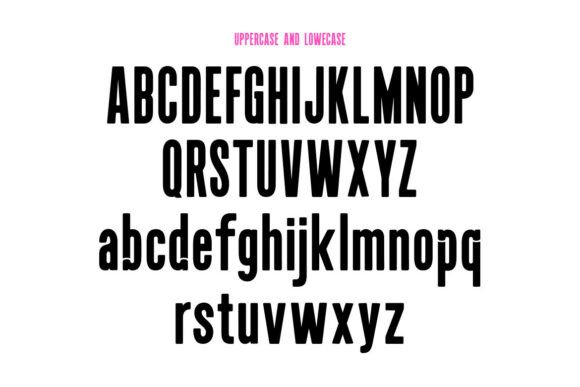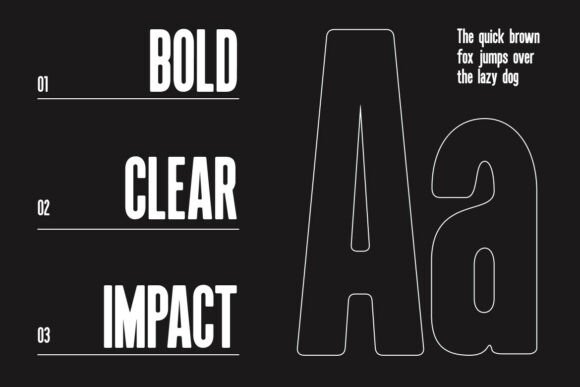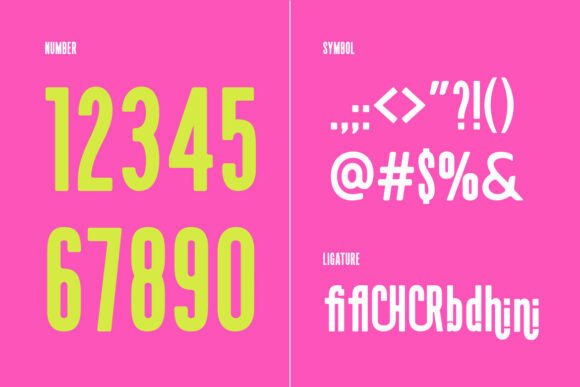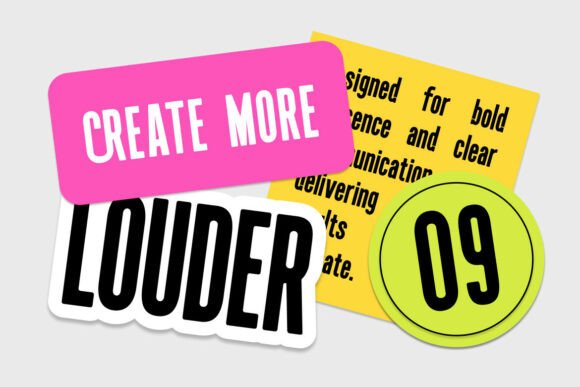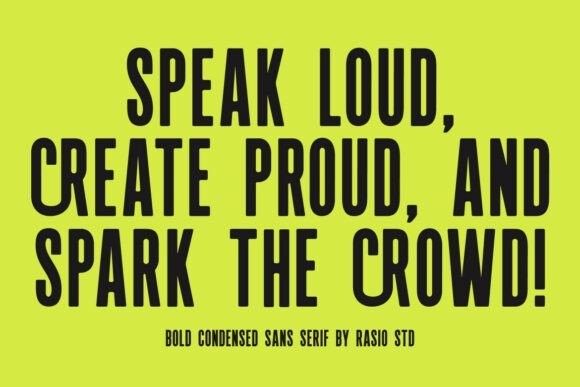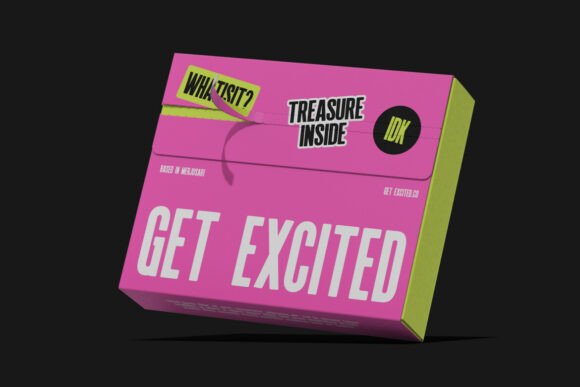
The Perfect Blend of Boldness and Efficiency
Have you ever stared at a blank design canvas, searching for the perfect font to elevate your project and make it truly unforgettable? I’m sure we’ve all been there. The struggle is real, but what if I told you there’s a font that can save the day and make your design stand out like never before?
Enter the Brightform Font, a game-changing sans-serif typeface designed to pack a punch in even the most space-constrained layouts. This bold, condensed font is engineered to deliver maximum visual impact while maintaining excellent readability. Its structured, condensed form makes it the ultimate solution for designers looking to create high-impact designs that demand attention and clarity.
For designers, the Brightform Font is a valuable asset that can take their projects to the next level. Its versatility and effectiveness make it an ideal choice for a wide range of applications, from branding systems and advertising campaigns to editorial headlines and merchandise graphics.
Brightform Font Key Features
- Unique Characteristics: Brightform Font features a modern, sans-serif design with a unique blend of geometric and organic elements, making it ideal for contemporary and minimalist designs.
Brightform Font Review
I recently had the chance to work with the Brightform Font, and I must say it’s a mixed bag. Here’s my honest take:
- Unique and modern design: Brightform Font has a distinctive look that’s sure to catch attention. Its bold, geometric shapes make it perfect for headings and titles.
- High legibility: Despite its bold appearance, the font is surprisingly easy to read, even at small sizes.
- Comprehensive character set: Brightform Font includes a wide range of characters, including accents and ligatures, making it suitable for various languages and applications.
- Not suitable for body text: While Brightform Font is great for headings and titles, it’s not the best choice for body text. Its boldness can make it tiring to read in large quantities.
- Limited stylistic variations: Brightform Font comes in a single style, which can make it feel a bit one-dimensional. Additional styles or weights would be a welcome addition.
Brightform Font is a solid choice for designers looking for a modern, attention-grabbing font. While it may not be suitable for all applications, it’s a great option for headings, titles, and other display text. With a bit more stylistic variation, it could be even more versatile.
For optimal results, use the Brightform font in combination with bold and italic styles to add emphasis and visual interest.
Use the font in headings and titles to create a cohesive and modern design aesthetic.
The Brightform font is ideal for:
Modern business and corporate designs
Web and digital interfaces
Print materials such as brochures and flyers